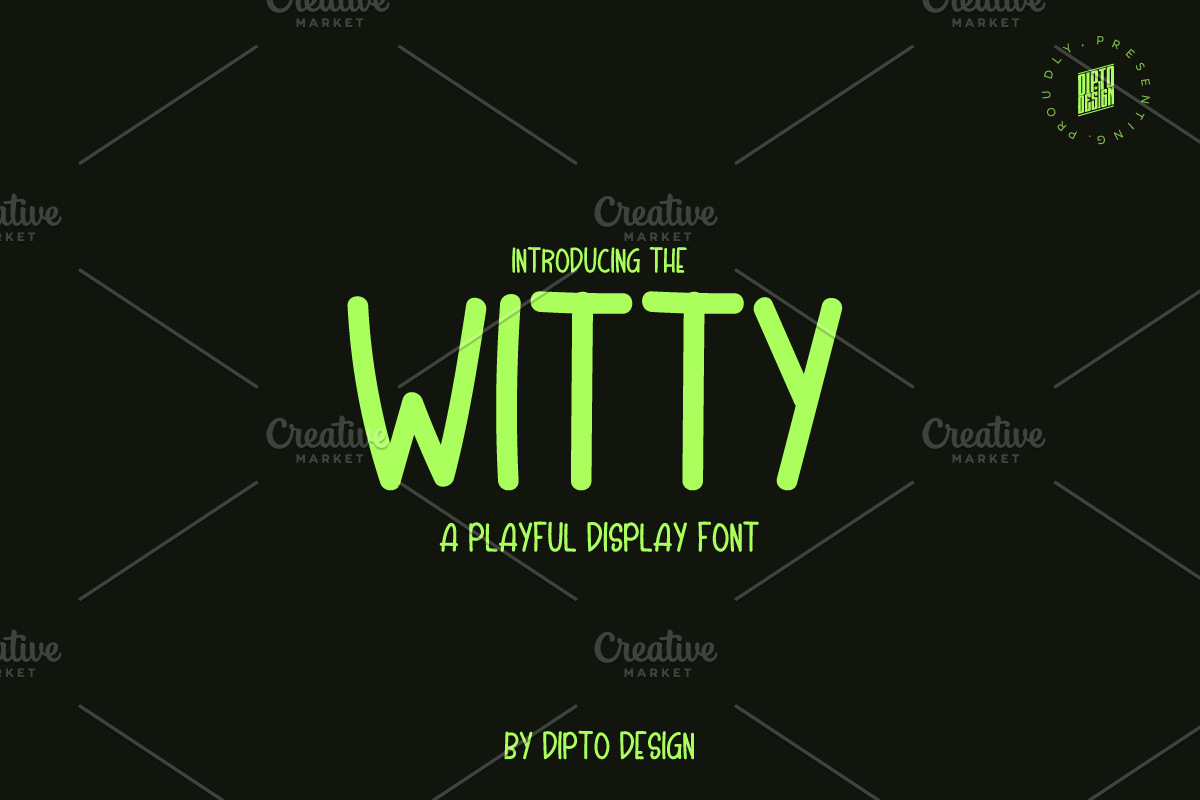
Please note, to use this font for commercial purposes, you must purchase the full version. Witty is a fun and cheerful playful font that brings a unique and lively character to your designs. With its quirky letterforms and playful vibe, this font is perfect for children's projects, event invitations, branding, and creative designs. Whether you're working on a fun logo, an eye-catching poster, or a playful brand identity, Witty adds personality and joy to your work. Test it out and enjoy free download access for personal use. Experience the lively charm of Witty - A Playful Font Free Download before purchasing the commercial license. Add a joyful, whimsical touch to your designs with Witty.